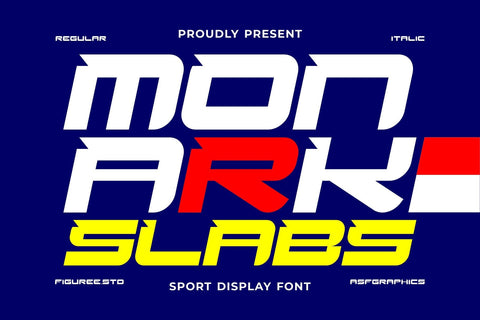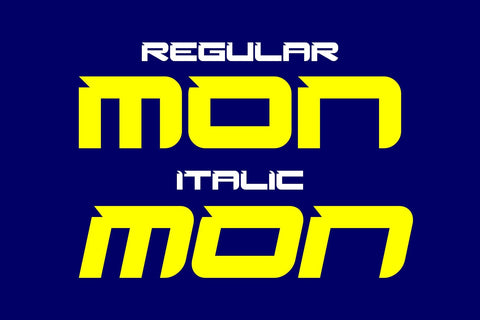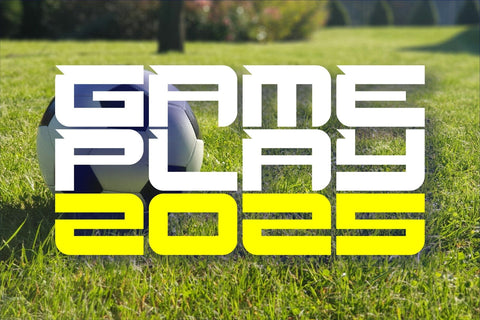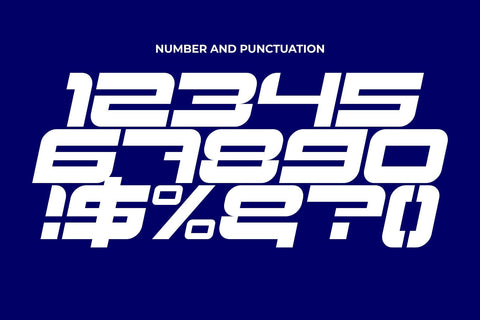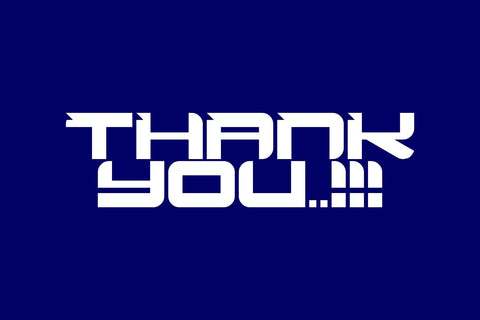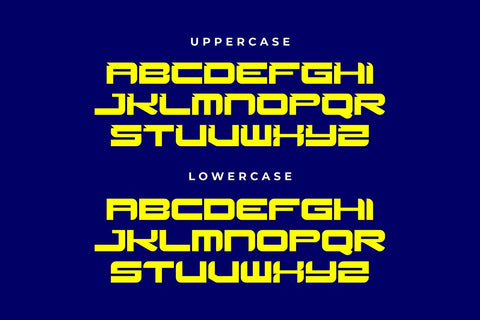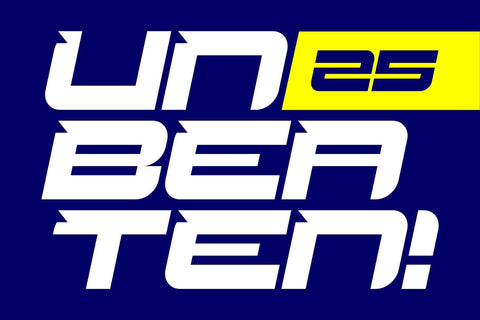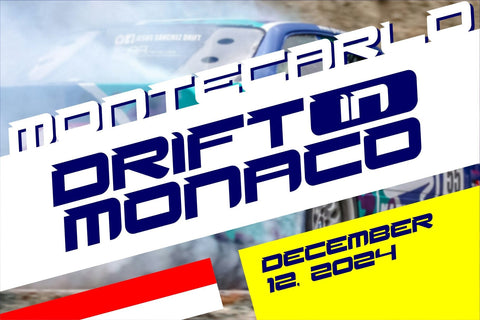
Monark Slab - Sport Display Font
Monark Slabs is a powerful sports display font crafted for designs that need energy, confidence, and bold impact. Its robust slab-serif style makes it ideal for projects that demand a strong and professional athletic aesthetic.
🏆 Dynamic Design: With sharp edges and clean lines, Monark Slabs exude determination and focus, perfect for sports branding, event posters, or competitive merchandise.
⚡ Versatile Appeal: Whether used for team logos, dynamic headlines, or motivational designs, Monark Slabs adapts seamlessly, adding a commanding presence to every project.
💪 Built for Strength: The bold structure of Monark Slabs ensures readability while conveying the spirit of strength and perseverance, essential for designs that aim to inspire and energize.
- Stylistic Alternates
- Regular and Italic